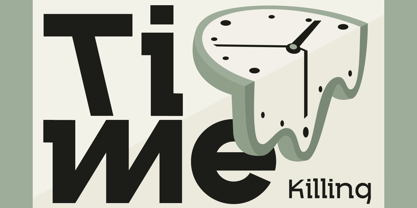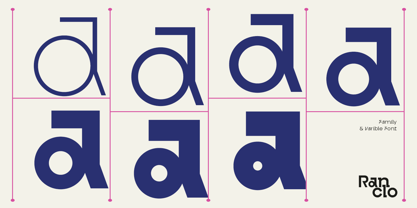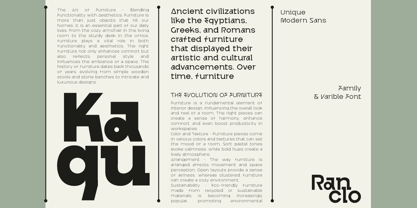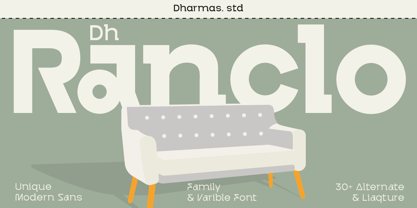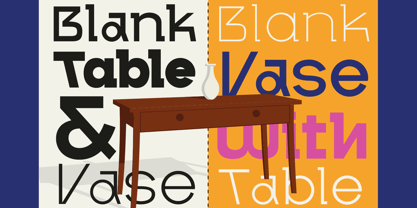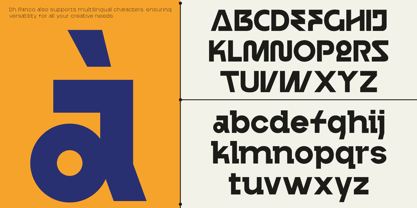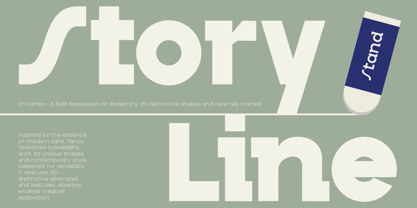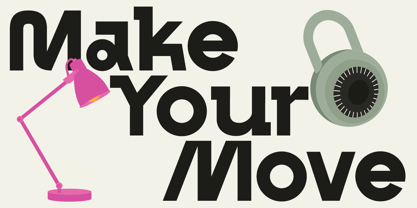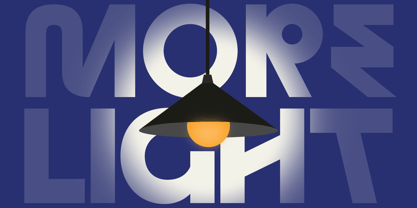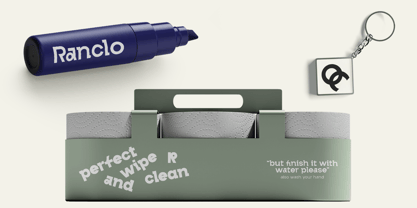
Dh Ranclo
The Dh Ranclo Font Family was designed by Ahmad Jamaludin and published by Ahmad Jamaludin. Dh Ranclo contains 7 styles and family package options. More about this family
Dh Ranclo – A Modern Display Variable Typeface
Dh Ranclo is a modern display typeface designed for high-end branding and professional design projects. With its clean, geometric letterforms and refined aesthetic, this font blends contemporary minimalism with timeless elegance—perfect for businesses that demand a polished and authoritative presence.
Featuring 7 variable weights—Thin, Extra Light, Light, Regular, Medium, Semi Bold, and Bold—along with 32 unique alternates and ligatures, Dh Ranclo provides flexibility for a wide range of design applications. Whether you’re crafting a corporate identity, designing sleek business presentations, or creating a standout logo, this typeface delivers clarity, structure, and sophistication.
Ideal for corporate branding, luxury packaging, editorial layouts, professional presentations, UI/UX design, modern website headlines, and marketing assets, Dh Ranclo adapts seamlessly to any project that demands a bold yet elegant visual identity.
Font Features:
• 7 Weights: Thin, Extra Light, Light, Regular, Medium, Semi Bold, Bold
• 32+ Alternates & Ligatures for creative flexibility
• OpenType Features: Advanced typographic options
• Multilingual Support: Covers multiple global languages
Dh Ranclo is more than just a typeface—it’s a statement of modern professionalism and refined aesthetics. Elevate your designs with its sleek, structured forms and make a lasting impression.